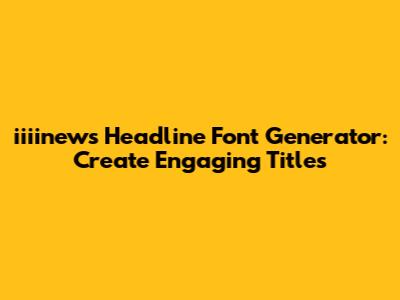
Iiiinews Headline Font Generator: Create Engaging Titles
Hey guys! Ever wondered how news outlets like iiiinews create those eye-catching headlines that just grab your attention? Well, you're in luck! In this article, we're diving deep into the world of headline font generators, showing you how to create titles that not only look professional but also boost your content's visibility. Let's get started!
What is a Headline Font Generator?
Okay, so what exactly is a headline font generator? Simply put, it's a tool that allows you to experiment with different fonts, sizes, and styles to create the perfect headline for your articles, blog posts, or social media updates. A good headline font generator will offer a variety of options, allowing you to see how your headline looks in different fonts without having to manually change the font each time. This can save you a ton of time and effort, especially if you're someone who likes to try out different options before settling on the best one.
Why use a headline font generator? Well, first impressions matter. Your headline is often the first thing people see, and it can make or break whether they decide to click on your content. A well-crafted headline can pique curiosity, convey important information, and even evoke emotion. By using a headline font generator, you can ensure that your headlines are visually appealing and aligned with your brand's identity. Moreover, these tools often provide previews of how your headline will look on different devices, ensuring a consistent experience for your audience, no matter how they're accessing your content.
Headline font generators can be especially useful for bloggers, marketers, and journalists who need to create headlines on a regular basis. Instead of relying on guesswork or generic fonts, you can use a font generator to create headlines that are optimized for readability and impact. This can lead to increased engagement, higher click-through rates, and ultimately, more traffic to your website or blog. Furthermore, many headline font generators come with additional features, such as the ability to adjust letter spacing, line height, and text color, giving you even more control over the look and feel of your headlines. So, whether you're crafting a catchy title for your latest blog post or designing a compelling headline for a news article, a headline font generator can be an invaluable tool in your arsenal.
Why Headlines Matter: The iiiinews Approach
Headlines are the gateway to your content. Think about it: when you're scrolling through social media or browsing a news website like iiiinews, what makes you click on an article? More often than not, it's the headline that grabs your attention. iiiinews understands this, and they use compelling headlines to draw readers in.
A well-crafted headline does more than just state the topic of the article. It tells a story, creates intrigue, and promises value to the reader. For example, instead of a bland headline like "New Study on Climate Change," iiiinews might go with something like "Scientists Warn of Dire Consequences in New Climate Change Report." The latter headline is more specific, uses stronger language, and creates a sense of urgency that encourages readers to click.
iiiinews also understands the importance of visual appeal in headlines. They use fonts and styles that are easy to read and complement the overall design of their website. The font choice is clean and modern, ensuring that the headline stands out without being distracting. They also pay attention to the size and spacing of the letters, making sure that the headline is legible on both desktop and mobile devices. By prioritizing readability and visual appeal, iiiinews ensures that their headlines are as effective as possible in capturing readers' attention. Moreover, they often use strong verbs and evocative adjectives to create a sense of drama and excitement. This helps to pique readers' curiosity and encourage them to learn more about the story. In short, iiiinews understands that headlines are not just titles; they are powerful marketing tools that can make or break the success of an article.
Key Features to Look for in a Headline Font Generator
When choosing a headline font generator, there are several key features you should keep in mind. Not all tools are created equal, and the right one for you will depend on your specific needs and preferences.
First and foremost, consider the variety of fonts available. A good headline font generator should offer a wide range of fonts to choose from, including both classic and modern styles. This will allow you to experiment with different looks and find the perfect font to match your brand's identity. Some font generators also allow you to upload your own fonts, giving you even more flexibility.
Another important feature to look for is the ability to adjust font size, spacing, and color. These settings can have a significant impact on the readability and visual appeal of your headlines. Being able to fine-tune these elements will help you create headlines that are both eye-catching and easy to read. Additionally, some headline font generators offer advanced customization options, such as the ability to add shadows, outlines, or other special effects to your headlines. This can be a great way to make your headlines stand out from the crowd.
Preview options are also crucial. You want to be able to see how your headline will look on different devices and in different contexts. A good headline font generator will offer preview options for desktop, mobile, and social media platforms. This will ensure that your headlines look great no matter where they're being viewed. Furthermore, some font generators offer the ability to preview your headline against different background colors or images. This can be helpful for ensuring that your headline is legible and visually appealing in a variety of settings. Finally, consider the ease of use of the headline font generator. The tool should be intuitive and easy to navigate, even for beginners. A clunky or complicated interface can be frustrating and time-consuming, so look for a font generator that is user-friendly and efficient. By considering these key features, you can choose a headline font generator that will help you create stunning headlines that capture readers' attention and drive engagement.
Step-by-Step Guide: Using a Headline Font Generator
Alright, let's get practical! Here's a step-by-step guide on how to use a headline font generator:
1. Choose Your Generator: There are tons of online tools available. Some popular options include Canva, Adobe Spark, and Fontjoy. Pick one that suits your needs and offers the features you're looking for.
2. Enter Your Headline Text: Once you've chosen a generator, the first step is to enter the text of your headline. This is the message you want to convey to your audience, so make sure it's clear, concise, and attention-grabbing. Some headline font generators also offer suggestions for improving your headline, such as using power words or optimizing for search engines.
3. Select a Font: Now comes the fun part! Browse through the available fonts and choose one that matches the tone and style of your content. Consider factors such as readability, visual appeal, and brand consistency. Many headline font generators offer the ability to filter fonts by category, such as serif, sans-serif, or script, making it easier to find the perfect font for your needs.
4. Customize the Appearance: Most headline font generators allow you to customize the appearance of your headline by adjusting the font size, color, spacing, and other settings. Experiment with different options until you achieve the desired look. Be sure to consider the overall design of your website or social media profile when making these adjustments.
5. Preview and Download: Before you finalize your headline, take a moment to preview it on different devices and in different contexts. This will ensure that it looks great no matter where it's being viewed. Once you're satisfied with the results, download the headline image or code and use it in your content.
Examples of Effective Headlines Created with Font Generators
To give you some inspiration, here are a few examples of effective headlines that could be created using font generators:
• "Unlock Your Potential: The Ultimate Guide to Self-Improvement" (Uses a bold, modern font to convey confidence and authority).
• "Cozy Winter Recipes to Warm Your Soul" (Uses a warm, inviting font to evoke feelings of comfort and relaxation).
• "Breaking News: Local Company Announces Groundbreaking Innovation" (Uses a strong, attention-grabbing font to convey urgency and importance).
Font generators can help you create visually appealing headlines that grab readers' attention and encourage them to click through to your content. By experimenting with different fonts, sizes, and styles, you can create headlines that are both informative and engaging. Additionally, font generators often offer features such as the ability to add shadows, outlines, or other special effects to your headlines. This can be a great way to make your headlines stand out from the crowd. Furthermore, many font generators offer the ability to preview your headline on different devices and in different contexts. This ensures that your headline looks great no matter where it's being viewed. In short, font generators are a valuable tool for anyone who wants to create compelling headlines that drive traffic and engagement.
Tips for Choosing the Right Font for Your Headline
Choosing the right font for your headline is crucial for capturing attention and conveying the right message. Here are some tips to help you make the best choice:
• Consider Your Brand: Your font should align with your brand's identity and personality. If you have a serious, professional brand, opt for a classic, conservative font. If you have a more playful, creative brand, feel free to experiment with bolder, more unique fonts.
• Think About Readability: Readability is key. Choose a font that is easy to read, even at small sizes. Avoid overly decorative or stylized fonts that can be difficult to decipher.
• Pay Attention to Spacing: The spacing between letters and lines can have a big impact on readability. Make sure your font has adequate spacing to prevent the letters from blending together.
When choosing a font for your headline, it's important to consider the overall design of your website or social media profile. The font should complement the other elements on the page, such as the logo, images, and colors. Additionally, you should consider the target audience for your content. Are you trying to reach a young, tech-savvy audience or an older, more conservative audience? The font you choose should resonate with your target audience and convey the right message. Furthermore, it's important to test different fonts and see how they perform in terms of click-through rates and engagement. What works well for one audience may not work well for another. By carefully considering these factors, you can choose a font that will help you create headlines that are both visually appealing and effective in driving traffic and engagement.
So there you have it! Using a headline font generator can be a game-changer for creating engaging titles that capture your audience's attention. By understanding the importance of headlines, exploring the features of different font generators, and following our step-by-step guide, you'll be well on your way to crafting headlines that make your content shine. Go ahead and give it a try – your audience will thank you for it!